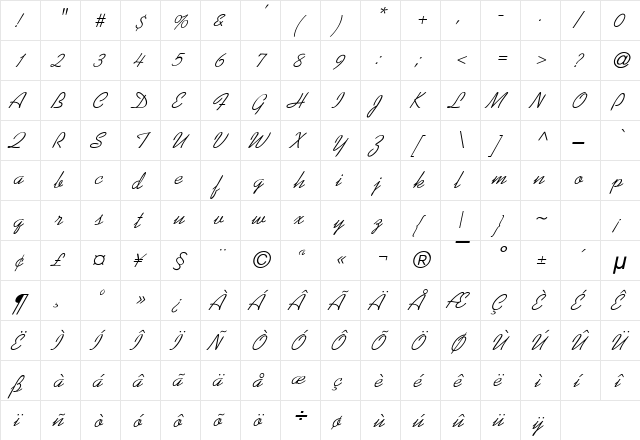
Kiev Italic
Design Context for Kiev Typeface
Kiev takes a measured approach to typography — its balanced proportions and neutral character make it a reliable workhorse for both digital and print work. Its italic angle brings a sense of urgency and motion to the letterforms.